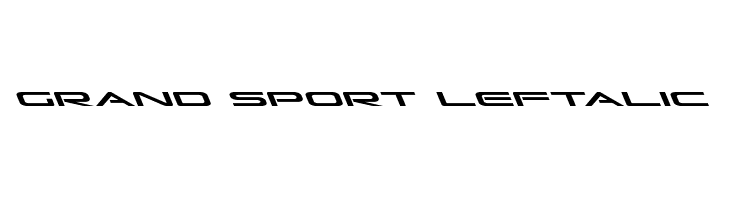
A sleek, italic font with a modern, dynamic design.
A sleek, modern italic font with a sporty and dynamic appearance.
A sleek, modern font with a slight italic slant, perfect for dynamic and innovative designs.
A sleek, modern font with a futuristic and geometric design.
A dynamic, italicized font with a sporty and modern aesthetic.